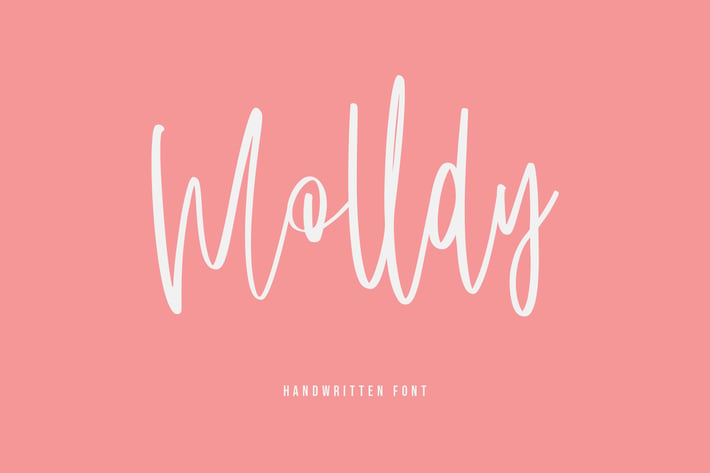
Molldy Handwritten Modern Script Font Brush Type
Give your designs an authentic handcrafted feel. "Molldy" is perfectly suited to signature, stationery, logo, typography quotes, magazine or book cover, website header, clothing, branding, packaging design and more.